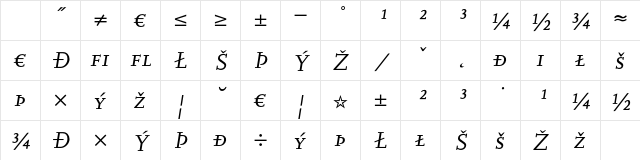
Complete Scala Caps Exp Italic glyph index. Displaying only characters natively supported by Scala Caps Exp Italic font.
Scala Caps Exp is a composed and adaptable typeface that performs quietly and consistently across a wide range of design contexts. The slanted form adds forward momentum and visual energy.
Pro Tip: Use Scala Caps Exp for emphasis, pull quotes, and subheadings where its slanted energy can add rhythm to the layout.